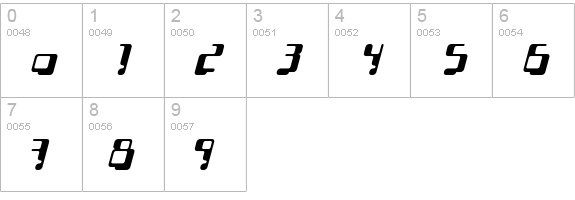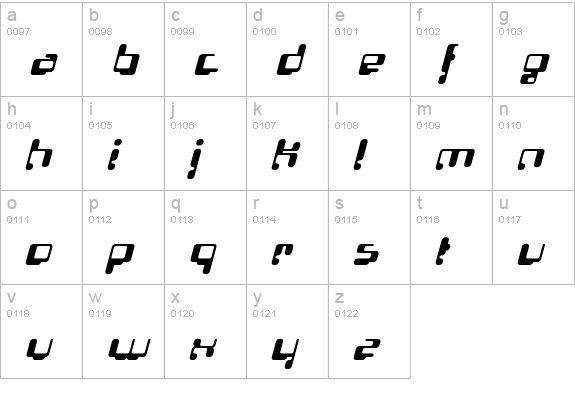
Localizer-SansItalic Font Details
Localizer-SansItalic is a modern and stylish font that brings a touch of sophistication to any design project. With its sleek and elegant italics, this typeface exudes a sense of professionalism and creativity. Whether you are creating a logo, branding materials, or a website, Localizer-SansItalic is the perfect choice to make your text stand out. The best part is that Localizer-SansItalic is completely free to download at FontsMarket.com. This means you can easily access this high-quality font without any cost, making it a valuable addition to your font library. Don't miss out on the opportunity to elevate your designs with Localizer-SansItalic today!